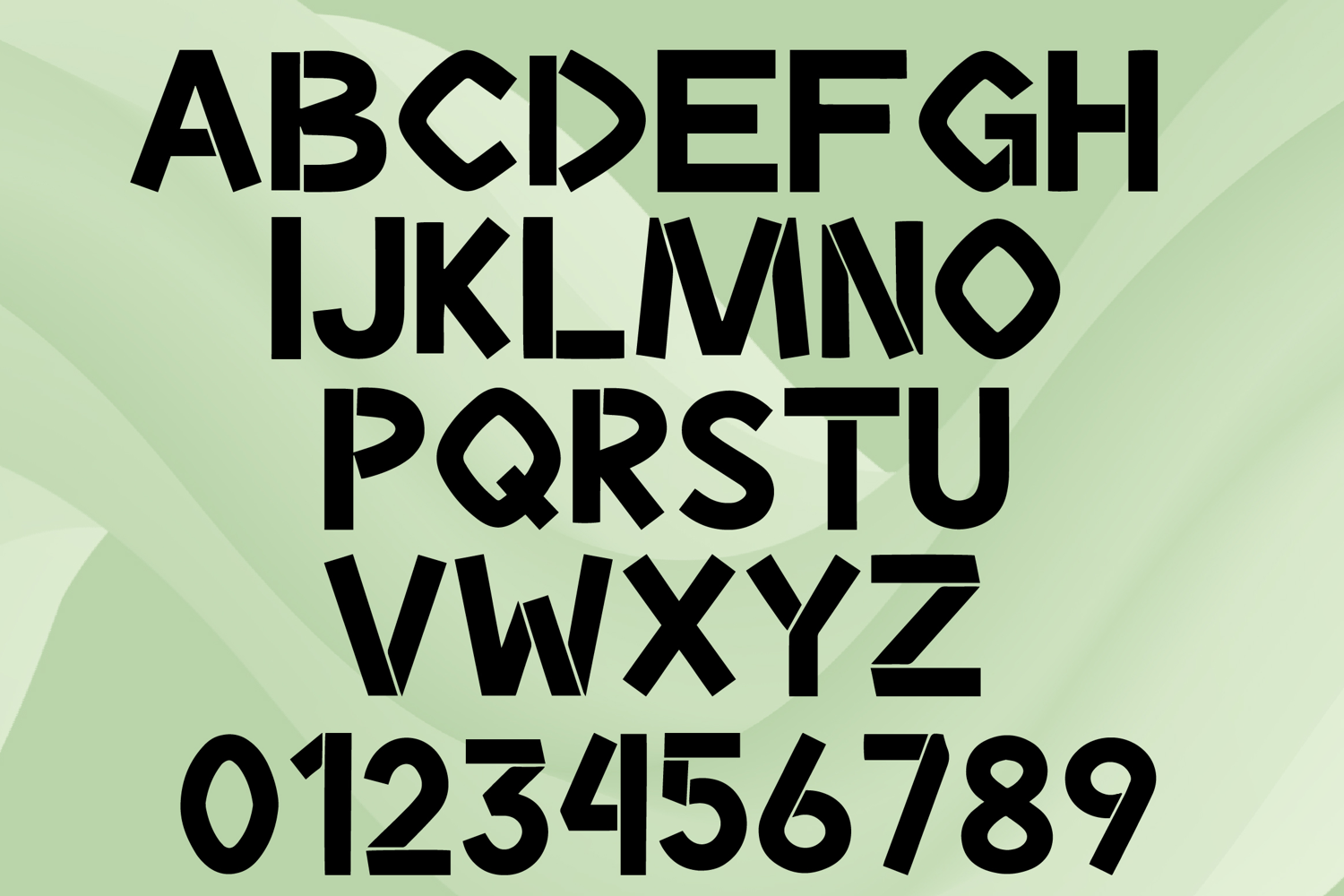
ARIA
ARIA is a bold display font with a modern geometric style and strong artistic character. Its uppercase letterforms feature thick strokes, sharp angles, and distinctive cut details that create a stylish, powerful, and eye-catching look. Designed with uppercase letters A–Z and numbers 0–9, ARIA is perfect for branding, posters, packaging, logos, headlines, social media graphics, and creative projects that need a bold and memorable statement.